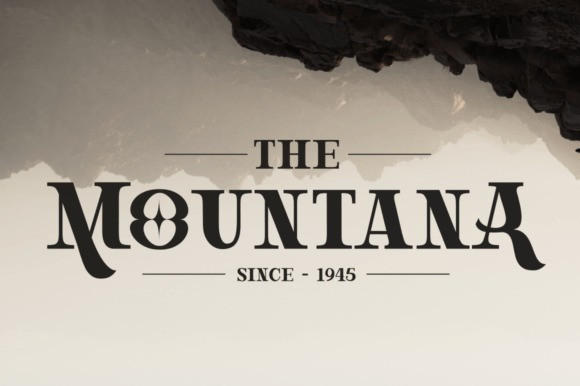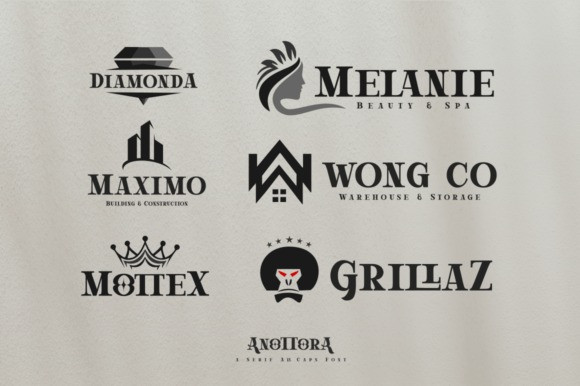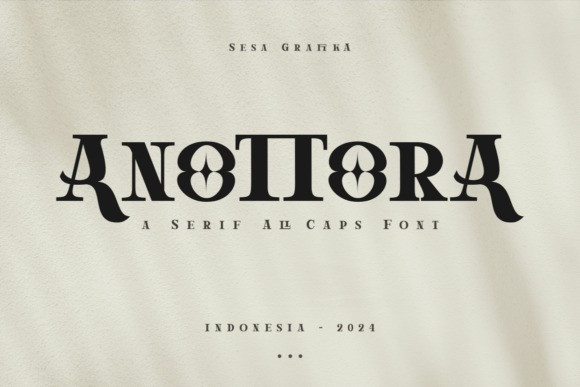
Anottora Font
Anottora Font is a elegant display serif font with modern look that is perfect for multipurpose projects. This font is also looks fabulous and will fit well in any design and very recommended for logo, crafts, posters, books, branding, quotes, print templates, packaging, invitations, product labels, advertising, wedding project and more.